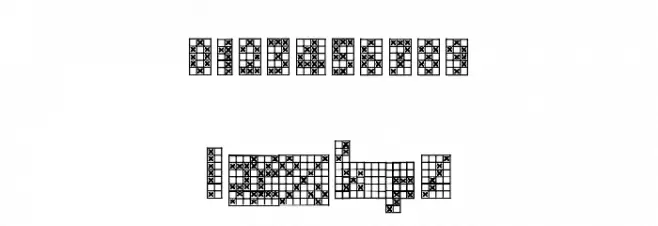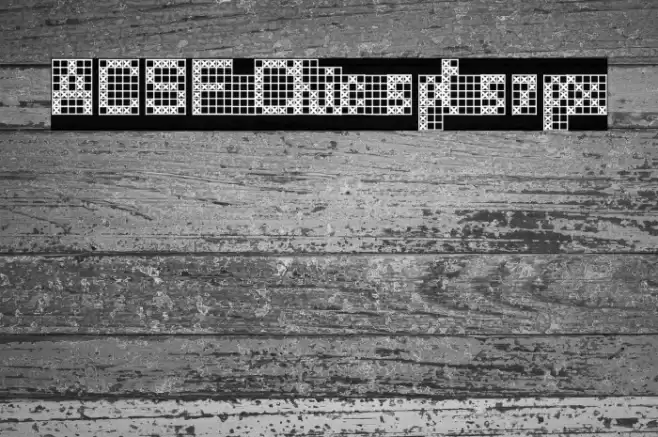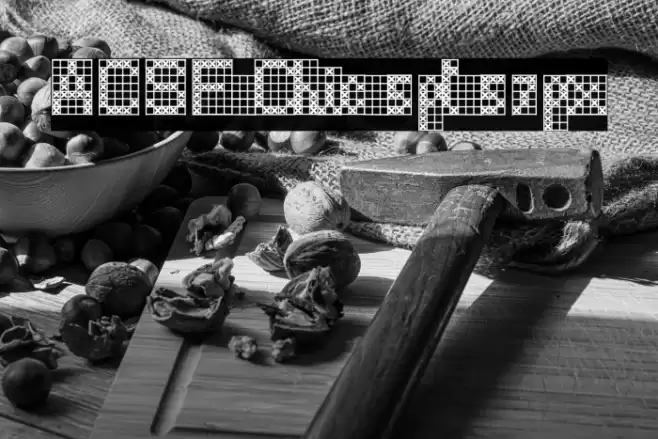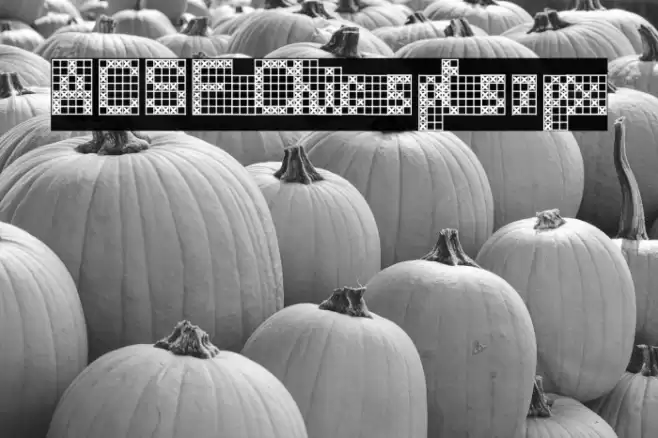
ACSF Chic 5pt 57px
This font features a unique grid-like structure, where each character is composed of a series of small squares and lines, creating a mosaic effect. The design is highly geometric, with a consistent pattern across all characters, giving it a digital and modern appearance. The uppercase and lowercase letters maintain this structured aesthetic, while numbers and special characters follow the same design principles. The font's intricate patterning makes it stand out, ideal for projects that require a distinct and eye-catching typeface.
A geometric, grid-based font with a modern, digital aesthetic.
- Proposed Projects: Ideal for digital art projects, tech-themed designs, futuristic branding, and creative posters.
- Use Case: Logos, Headlines, Posters